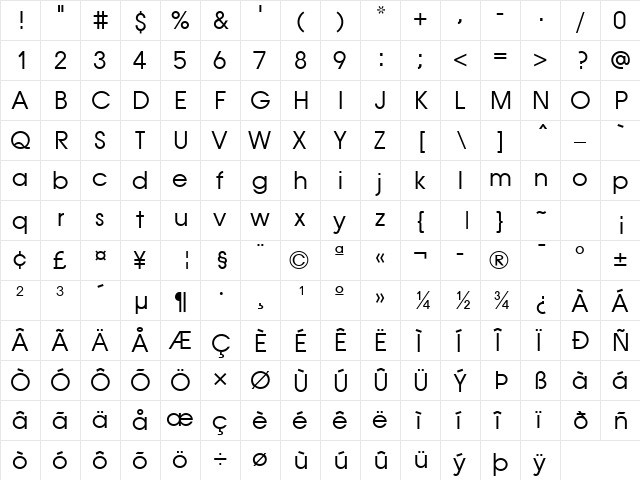
Atlanta Book
Design Context for Atlanta Typeface
Atlanta is a composed and adaptable typeface that performs quietly and consistently across a wide range of design contexts.